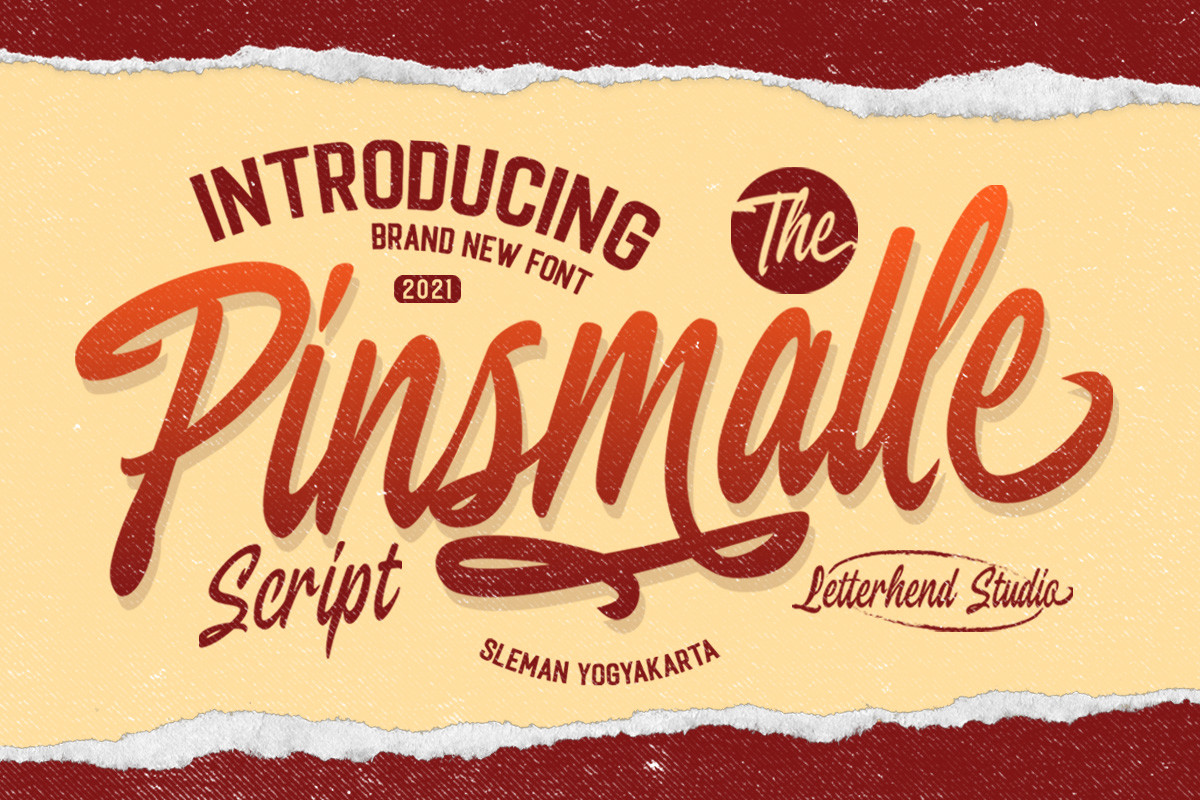
Pinsmalle Font
Pinsmalle Font is perfect for children's book illustrations, toy store branding, daycare center materials, educational app interfaces, birthday party invitations, craft supply packaging, playground signage, nursery room decor, kids' clothing labels, and family-friendly restaurant menus. This delightful typeface works beautifully for pediatric medical offices, youth summer camps, children's museum displays, elementary school communications, baby product branding, interactive learning games, and whimsical boutique stores.
What makes Pinsmalle Font so exciting is its charming ability to capture the innocent joy and playful spirit of childhood through carefully crafted letterforms. The font features compact, rounded characters with gentle curves that evoke feelings of warmth, safety, and fun. Each letter maintains a delicate balance between playfulness and readability, creating an approachable aesthetic that appeals to both children and parents. The diminutive design suggests intimacy and care, making it perfect for brands that want to communicate nurturing, creativity, and child-centered values while maintaining professional credibility in family-oriented markets.
The Pinsmalle Font family includes multiple weight variations and playful stylistic options designed to enhance creative flexibility. The collection features light, regular, and bold weights, each preserving the font's endearing character while offering versatility for different design applications. Additional elements include decorative flourishes, cute symbols, and child-friendly icons that complement the typography. Special character sets support multilingual children's content, while carefully designed spacing ensures excellent legibility for emerging readers and educational materials.